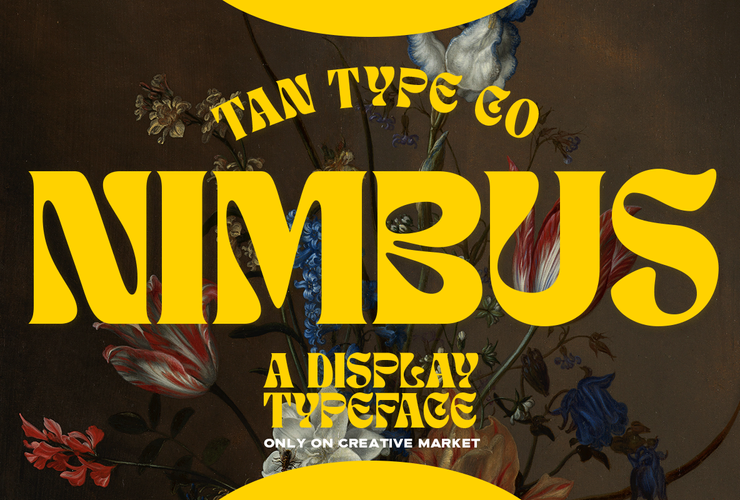
TAN Nimbus specimen and verified specs
- Styles: 1 (Regular)
- Glyphs: 341
- Language support: Basic Latin (English), Western European, Central & Eastern European
- OpenType features: kerning, fractions
- Designer: Novia Jonatan (TanType Co.)
Design and character
TanType describes TAN Nimbus as “a psychedelic inspired typeface” that is “retro, bold, and playful.” The specimens fit that description. This is a very heavy display face in the late-1960s and 1970s poster tradition, with strokes that swell and pinch as if the letters were slowly melting.
Things you notice in the character set:
- Counters are tiny. In the B, e and a they shrink to small slits, which gives the text a dark, dense texture.
- The N uses a curved diagonal, and the R and K kick their legs out in curves rather than straight lines.
- Ascenders on b, d, h and l end in angled, wedge-like tops, a nod to old serif display types.
- The figures are round and bulbous, and the ampersand is an S-like swirl.
One quirk is worth knowing before you set a poster. The brackets, parentheses, braces, slash, maths signs and the ring of the @ are drawn as thin hairlines. Next to the heavy letters they look like they come from a different font. Avoid those characters at large sizes, or set them in a different typeface.
- Style: one, Regular. No italic, no other weights, not variable.
- Glyphs: 341, covering upper and lowercase, figures, punctuation and accented letters.
Language support and OpenType features
TAN Nimbus covers Basic Latin, Western European and Central/Eastern European characters, which means the accented letters for languages such as French, German, Spanish, Polish and Czech are present.
OpenType features are minimal:
- Kerning: automatic spacing between letter pairs, used by nearly every app.
- Fractions: turns 1/2 into a proper fraction when the Fractions feature is enabled in an OpenType-aware app such as InDesign or Illustrator.
There are no stylistic alternates or ligatures, and nothing is mapped to the Private Use Area. That is good news for Canva and Cricut Design Space users: what you see in the character map is the whole font, so you lose almost nothing compared with Illustrator, apart from automatic fractions.
Best uses and font pairings
Use TAN Nimbus where a short word needs to be loud and warm: gig and festival posters, record sleeves, café and bar signage, T-shirt graphics, retro packaging, YouTube thumbnails and social headers. It needs size to breathe. Below headline sizes those small counters fill in.
Pair it with a calm, open sans so the page is not all weight. DM Sans and Karla both read cleanly at small sizes. For a 1970s print feel, Space Mono for captions or prices works as an accent.
Who designed TAN Nimbus?
Novia Jonatan of TanType Co., according to the font files.
What font goes well with TAN Nimbus?
A plain sans such as DM Sans or Karla for body text, with Space Mono as an optional retro accent.